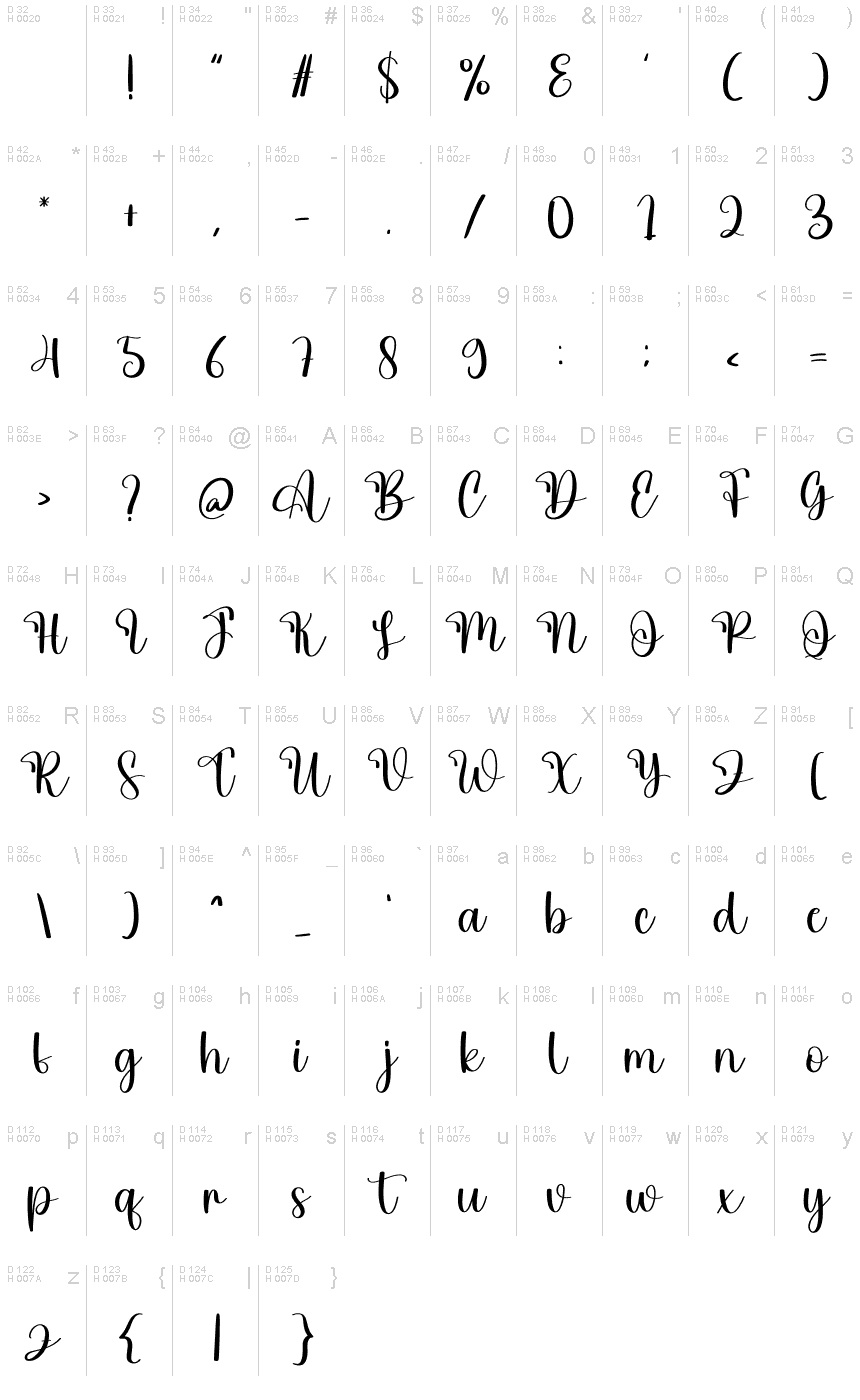
Holiday
If you're looking for a font that exudes elegance and sophistication, look no further than Holiday. Designed by scratchones, this calligraphy-style font is the perfect choice for projects that demand a touch of class. Its semi-light weight adds to its delicate nature, making it a great option for wedding invitations, greeting cards, and other special occasion materials. But don't let its refined appearance fool you – Holiday can also be used to add a touch of whimsy to playful branding campaigns or creative advertising materials. Trust us – with Holiday in your toolkit, the possibilities are endless.
the latest style letters are perfect for wall displays, wedding invitations, social media post logos, advertisements, product packaging, product designs, labels, photography, watermarks, invitations, stationery, and any project that requires taste handwriting.